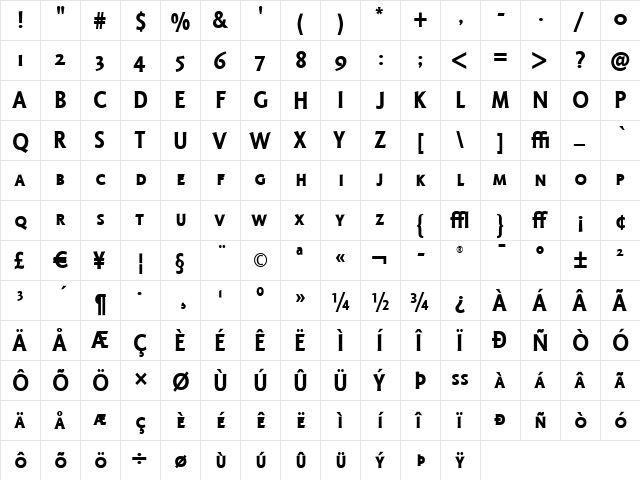
Octone ITC Bold
Design Context for Octone ITC Typeface
Octone ITC is a composed and adaptable typeface that performs quietly and consistently across a wide range of design contexts. The heavy weight commands attention and anchors typographic hierarchies.
Pro Tip: Use Octone ITC in both headline and body roles to test its range before committing to a single application.